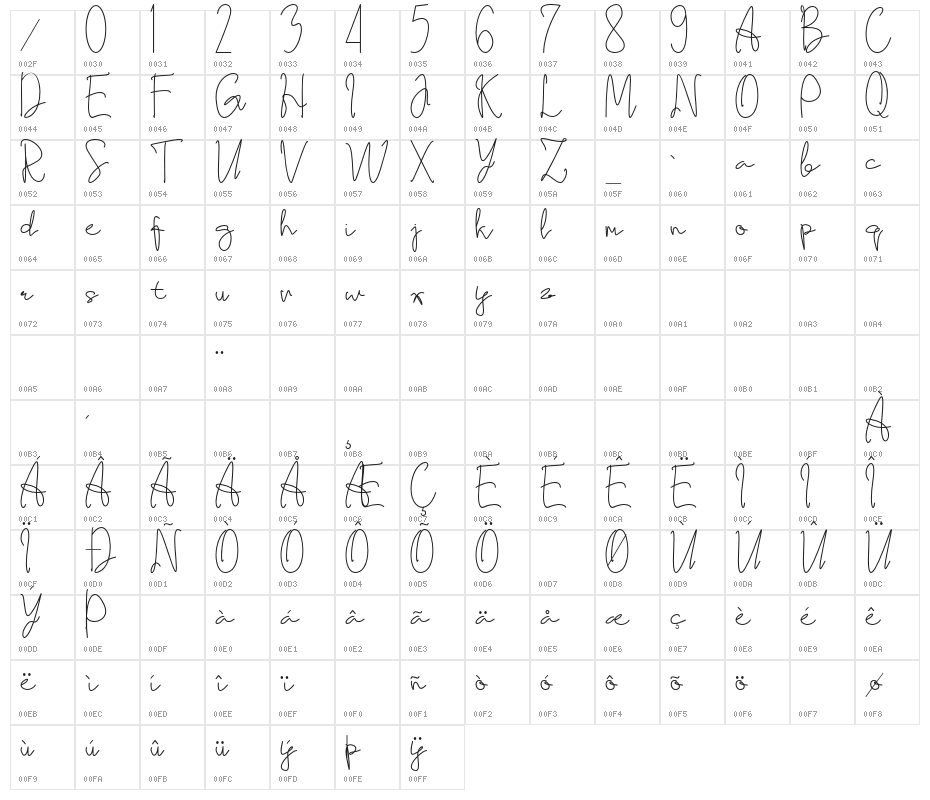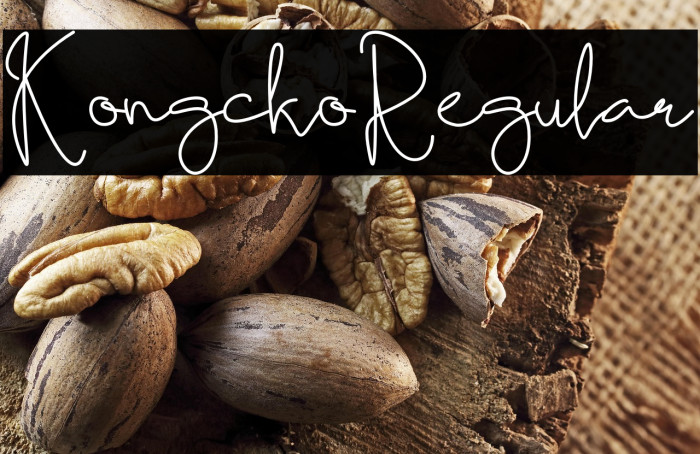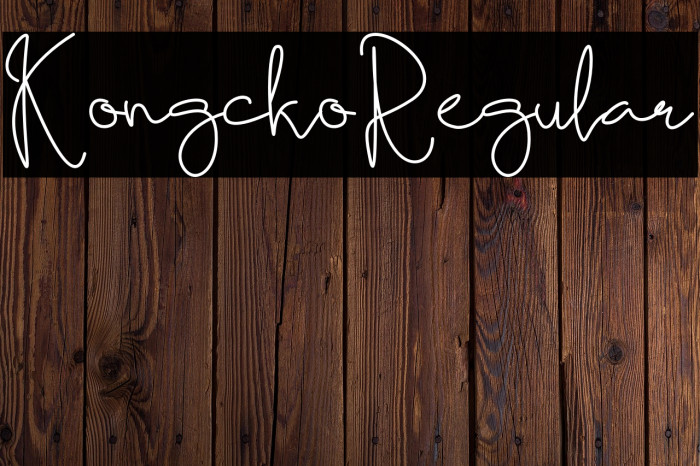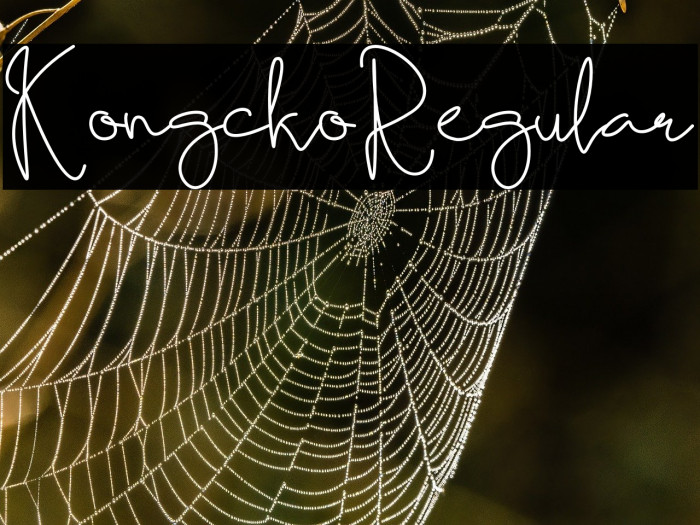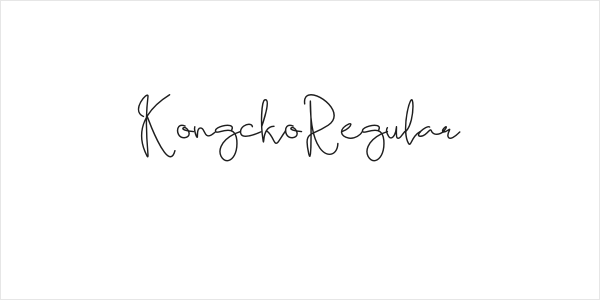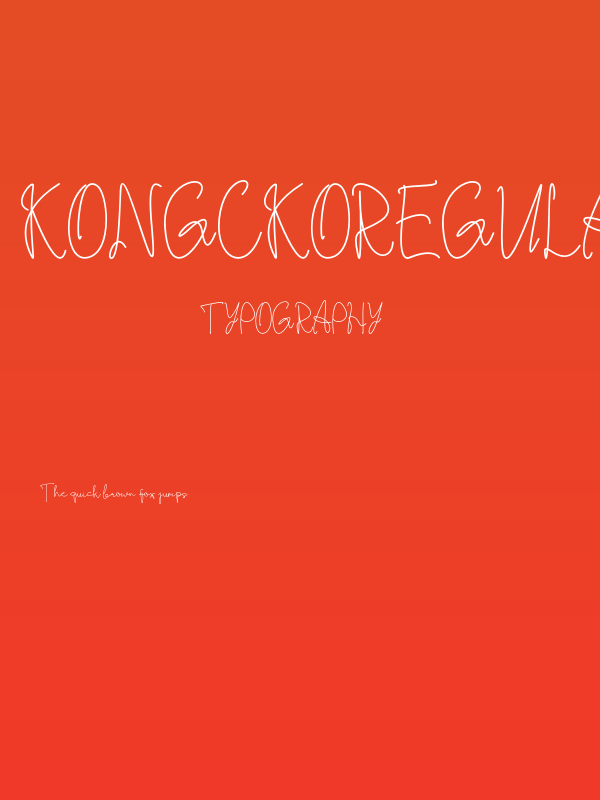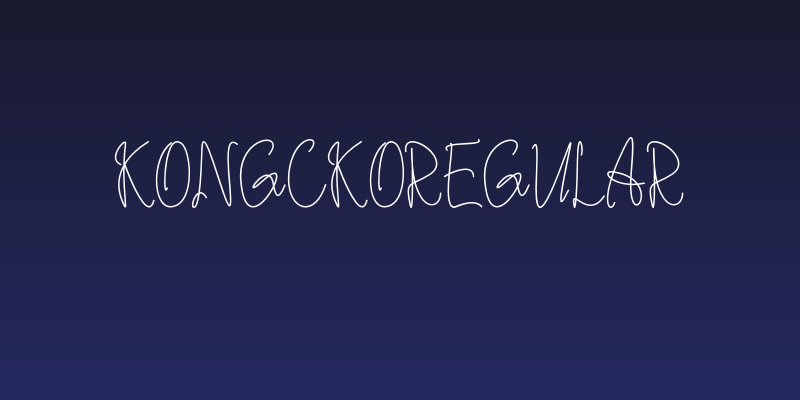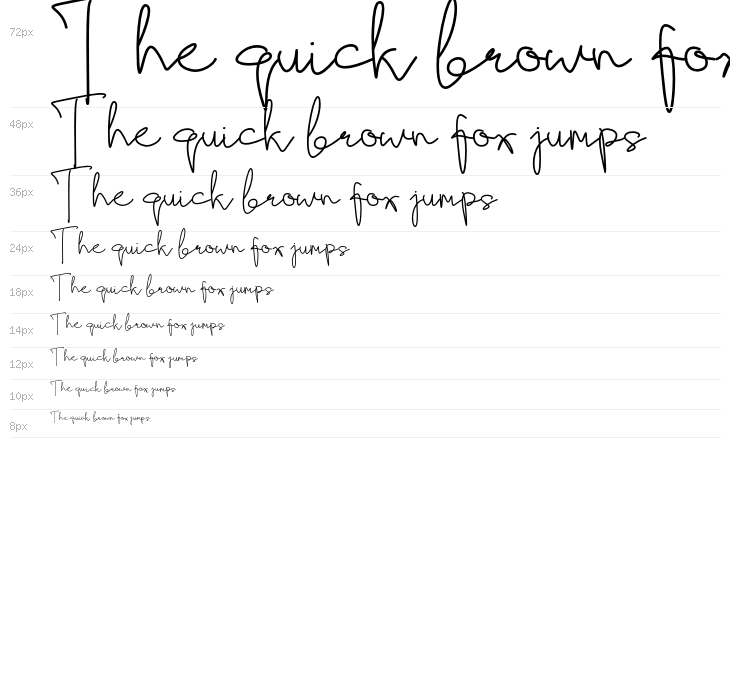
KongckoRegular Font
KongckoRegular Description
This font features a playful and whimsical handwritten style, characterized by its flowing, cursive letters. The uppercase letters are tall and slender, with a slight slant that adds to the casual feel. The lowercase letters maintain a consistent flow, with loops and curves that give a sense of movement and energy. The numbers are similarly styled, with a unique flair that complements the overall aesthetic. The special characters are integrated seamlessly, maintaining the same playful and dynamic style. This font is perfect for projects that require a personal touch, such as invitations, greeting cards, or branding materials that aim to convey a sense of warmth and approachability.
| Proposed Projects | Ideal for invitations, greeting cards, personal branding, and creative projects. |